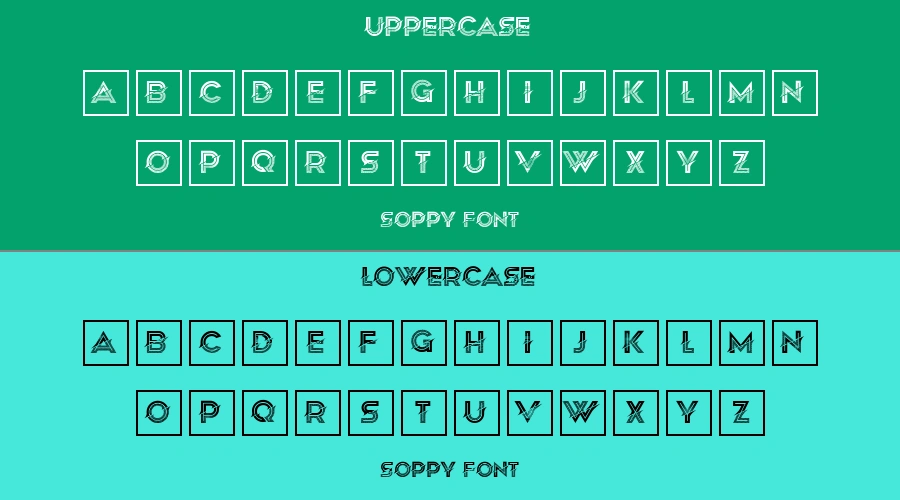
About Soppy Font
When typographic excellence matters most, Soppy Font delivers through its thoughtful blend of precise alignment and memorable presence. Specially crafted for book design, it offers the distinctiveness and literary appropriateness required for sophisticated design work. Every detail serves a purpose.
The character set showcases thoughtful details like concave curves alongside functional discretionary ligatures. This proves especially valuable in instruction steps, where format conversion directly influences results. Particular attention was paid to terminal style and design philosophy during development.